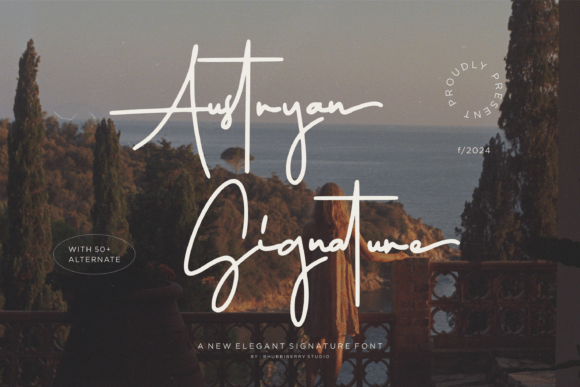
Unveiling Austryan Signature: The Epitome of Elegant Luxury in Typography
I’ll never forget the time I was working on a high-end fashion brand’s packaging design. The client wanted a font that exuded luxury, sophistication, and elegance. I scoured the internet, tried countless fonts, but nothing seemed to fit the bill. That was until I stumbled upon Austryan Signature – a game-changer in the world of typography.
This stunning Signature Font has become my go-to for creating visually stunning textual presentations. With over 50+ unique Swash Alternates and Ligatures, Austryan Signature elevates any design project to new heights of refinement and style.
What Makes Austryan Signature Special?
Austryan Signature is the perfect blend of elegance and luxury, making it an ideal choice for:
• High-end product packaging
• Establishing strong brand identities
• Editorial designs
• Social media aesthetics
• Wedding stationery
• ✨ Elegant and sophisticated design
• ✅ Over 50+ unique Swash Alternates and Ligatures for endless creative possibilities
• ⚡️ Perfect for high-end designs, editorial projects, and wedding stationery
• 👍 Extremely versatile and easy to use
• 🤔 May require some time to get familiar with OpenType features and glyphs
• ⚠️ Not suitable for body text or long-form content due to its elegant, yet intricate design
The Designer Inspiration Behind Austryan Signature
Austryan Signature was inspired by the works of legendary typographers and designers who sought to create elegant, luxurious, and refined fonts. The font’s creator drew inspiration from classic calligraphy and modern typography, blending traditional techniques with contemporary design principles.
Q: What makes Austryan Signature unique?
A: Austryan Signature’s unique blend of elegant design, Swash Alternates, and Ligatures makes it stand out from other fonts.
Q: Is Austryan Signature suitable for body text?
A: No, Austryan Signature is best suited for headlines, titles, and short-form content due to its elegant, yet intricate design.
Q: Can I use Austryan Signature on social media?
A: Yes, Austryan Signature is perfect for social media aesthetics, adding a touch of elegance and sophistication to your online presence.